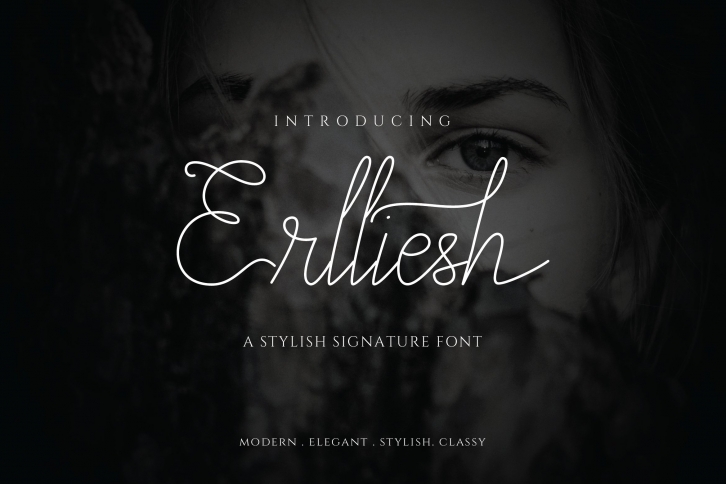
Elegant Signature is a beautiful font that was designed by flat. It's a great choice for designers and creatives who need such a font. It was released on November 3, 2022 and the file size is 2.92 MB. Elegant Signature may give a more youthful, expressive and casual look to your project. It is a very beautiful, refined, elegant, and high-quality font.